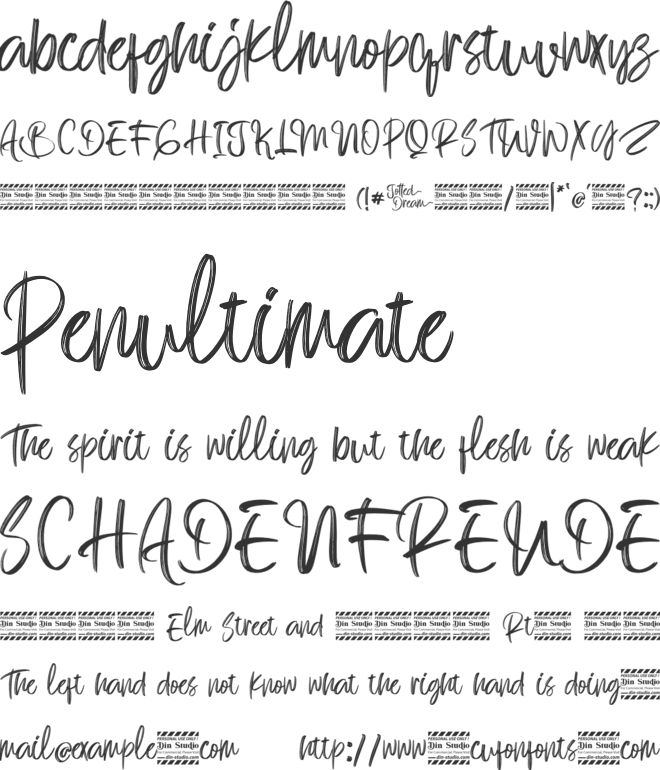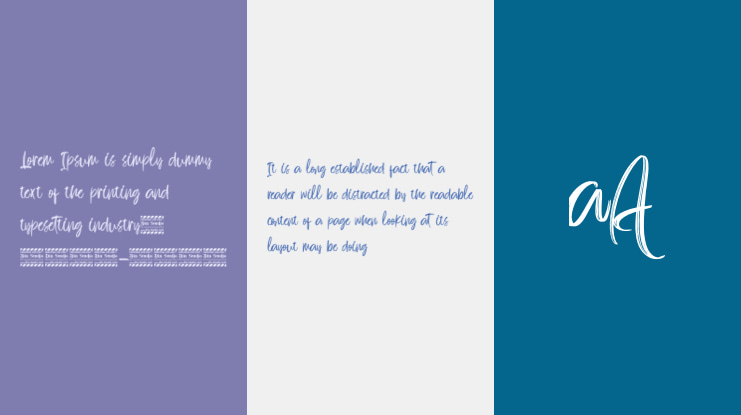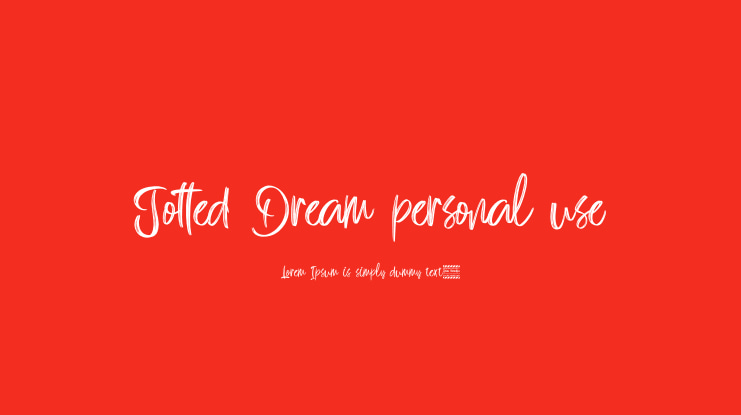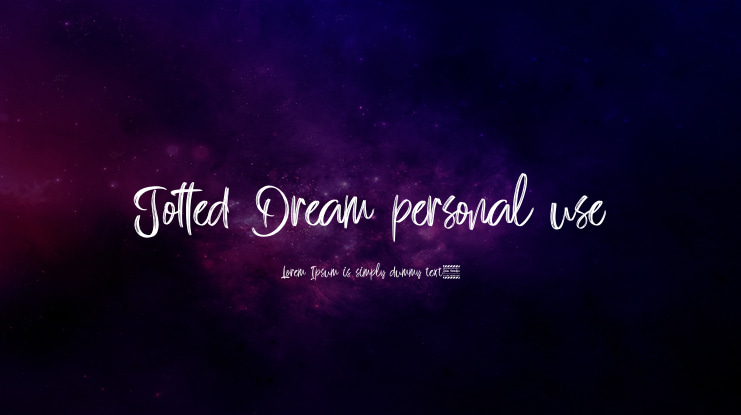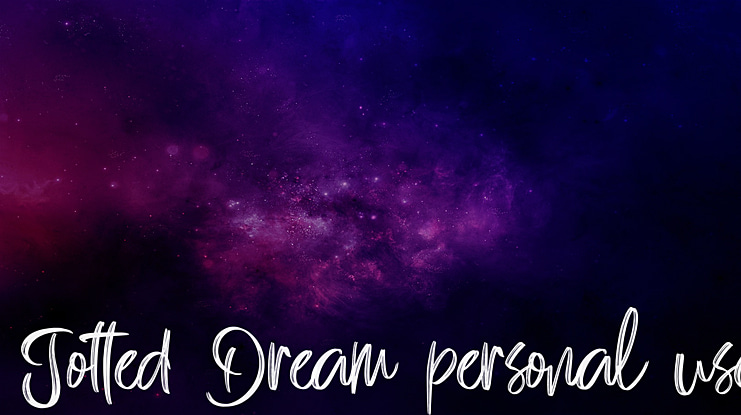
Jotted Dream is a display brush that is combined with elegant brush style. Every swash, stroke, and
curve was created to entice happiness and elegance. Great choice for your logo, book cover, poster, tshirt,branding, and advertisement needs.